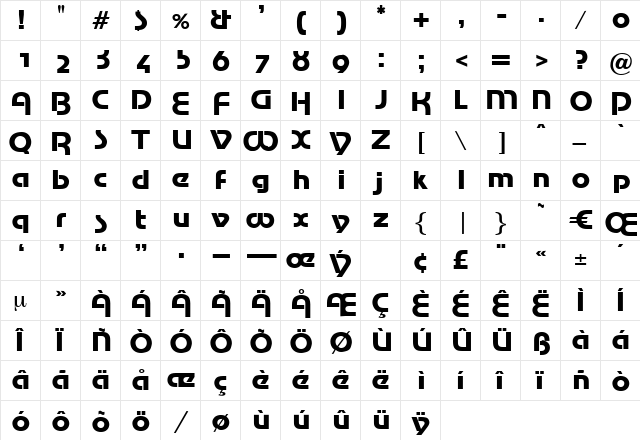
Wolfgang Regular
Design Context for Wolfgang Typeface
Wolfgang offers clean, dependable letterforms without strong stylistic allegiance, making it a practical choice for designers who need flexibility.